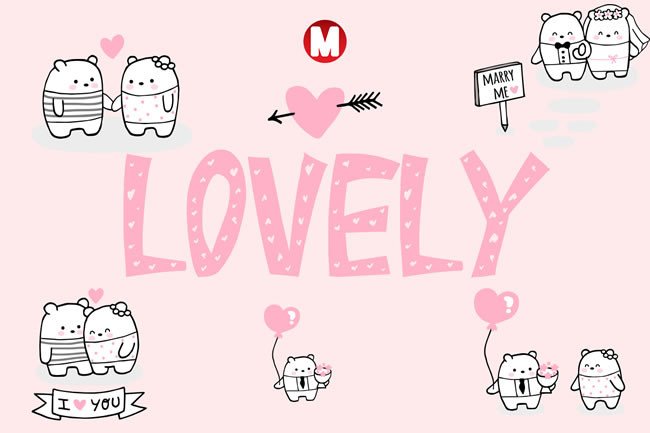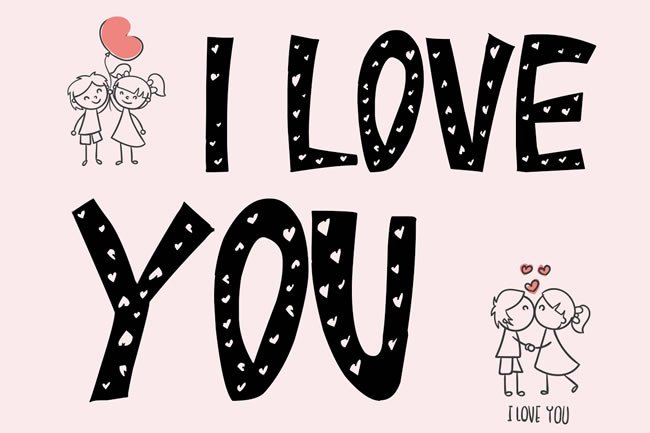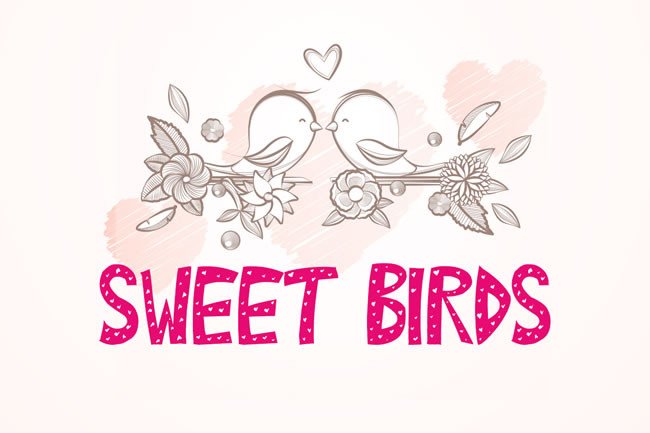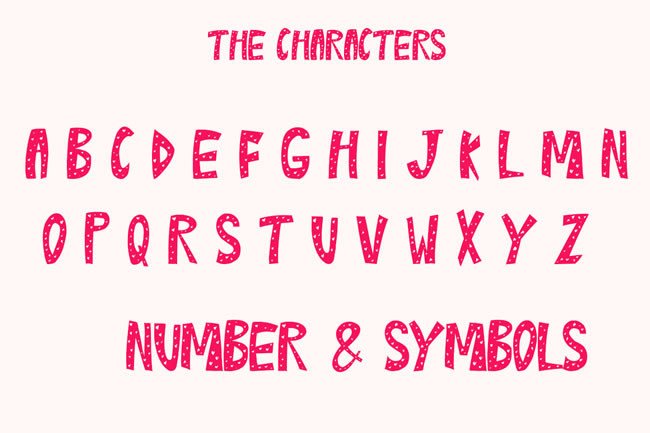
Lovely Font
About Lovely Font
‘Lovely’ is a new, fresh & playful typeface! Perfect for designing invitations, greeting cards, branding materials, business cards, quotes, posters, and more!